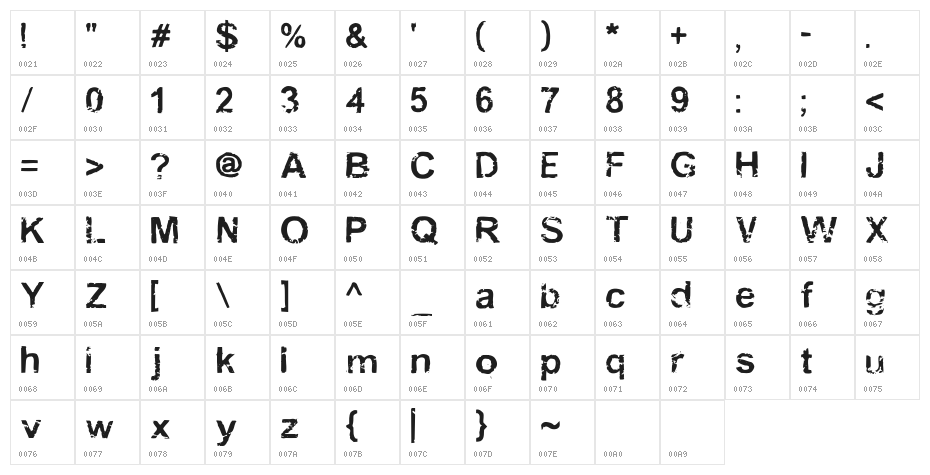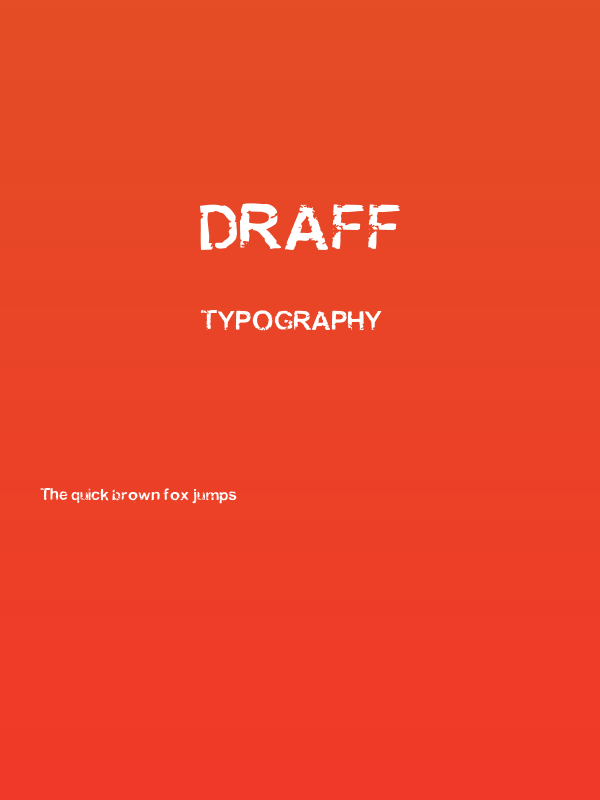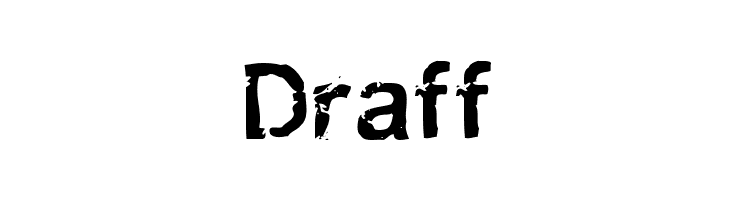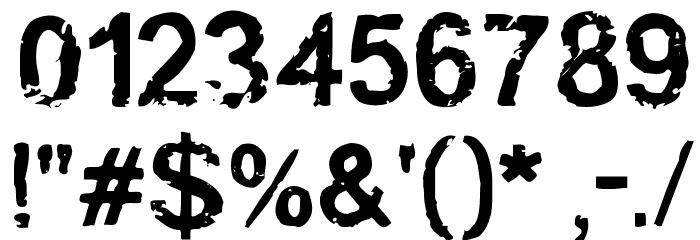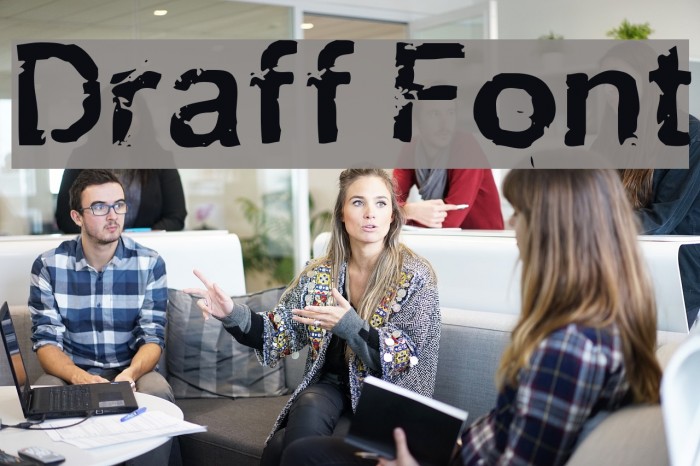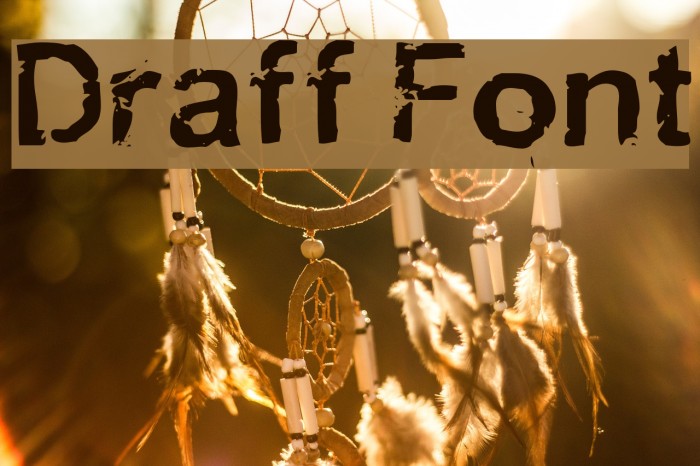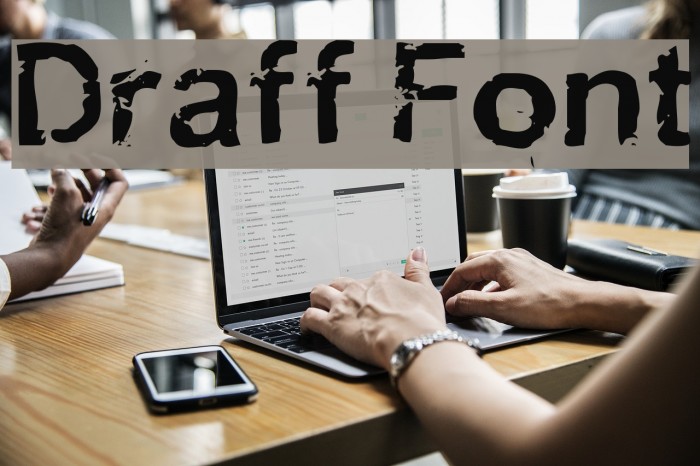
Draff Font
Draff Description
This font features a distressed, grunge style with a rough, textured appearance that gives it a worn, vintage feel. The characters are bold and impactful, with irregular edges and a slightly chaotic look, making it ideal for designs that require a rugged or edgy aesthetic. The uppercase and lowercase letters maintain a consistent style, while the numbers and special characters complement the overall theme. This font's unique appearance makes it stand out, perfect for projects that aim to capture attention with a bold statement.
| Overall Style | Grunge, Vintage |
| Proposed Projects | Ideal for album covers, posters, urban-themed designs, and branding that requires a rugged, edgy look. |